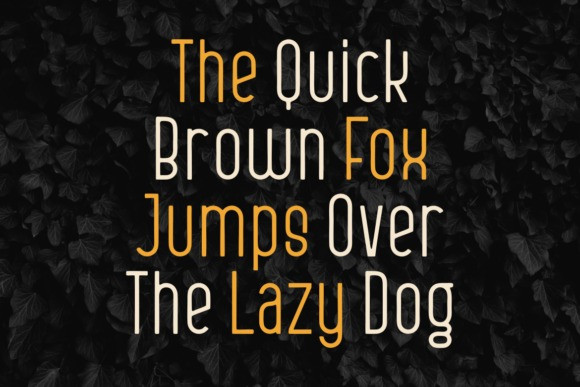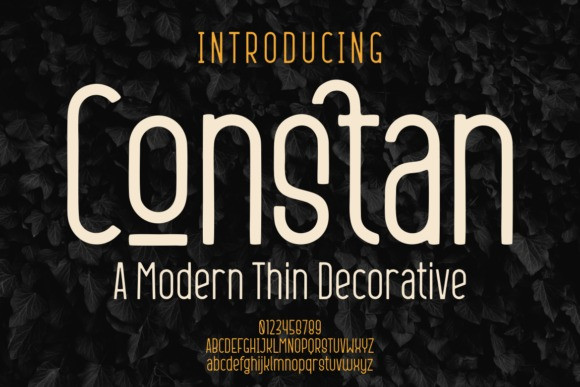
Constan Font
Constan Font is an elegant and modern display font. This minimalist and clean vibe can easily apply to your favorite designs such as book covers, magazines, social media posts, invitations, and so much more!